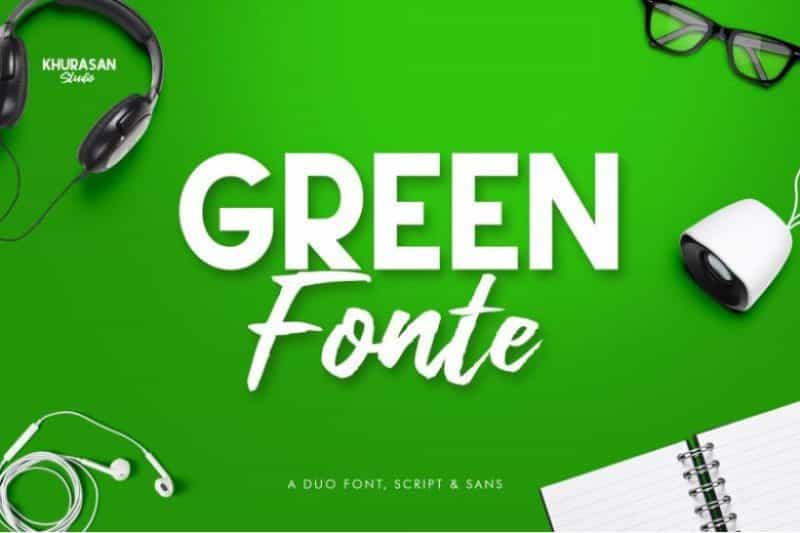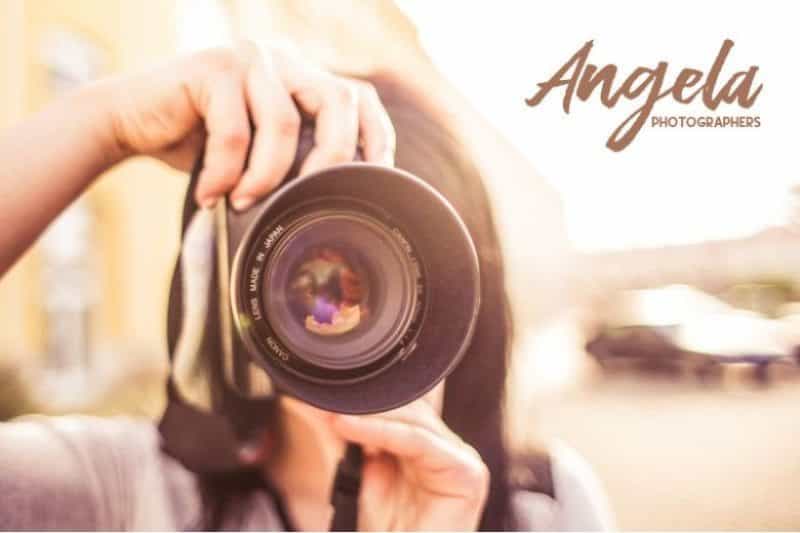
Discover Green Fonte Font, part of the Brush Handwritten collection—a versatile and unique font perfect for adding a personal touch to your projects. Download it for free and enjoy crafting designs with style, from invitations to social media posts. This font is available exclusively for personal use, giving you the freedom to create without limits. Unlock your creativity with Green Fonte Font today!
Green Fonte Font Duo is a handwriting script and sans nice font type. Green Fonte is ideal for use in name card, poster, logo, magazine, cover, banner, t-shirt and headers or even any big artwork.